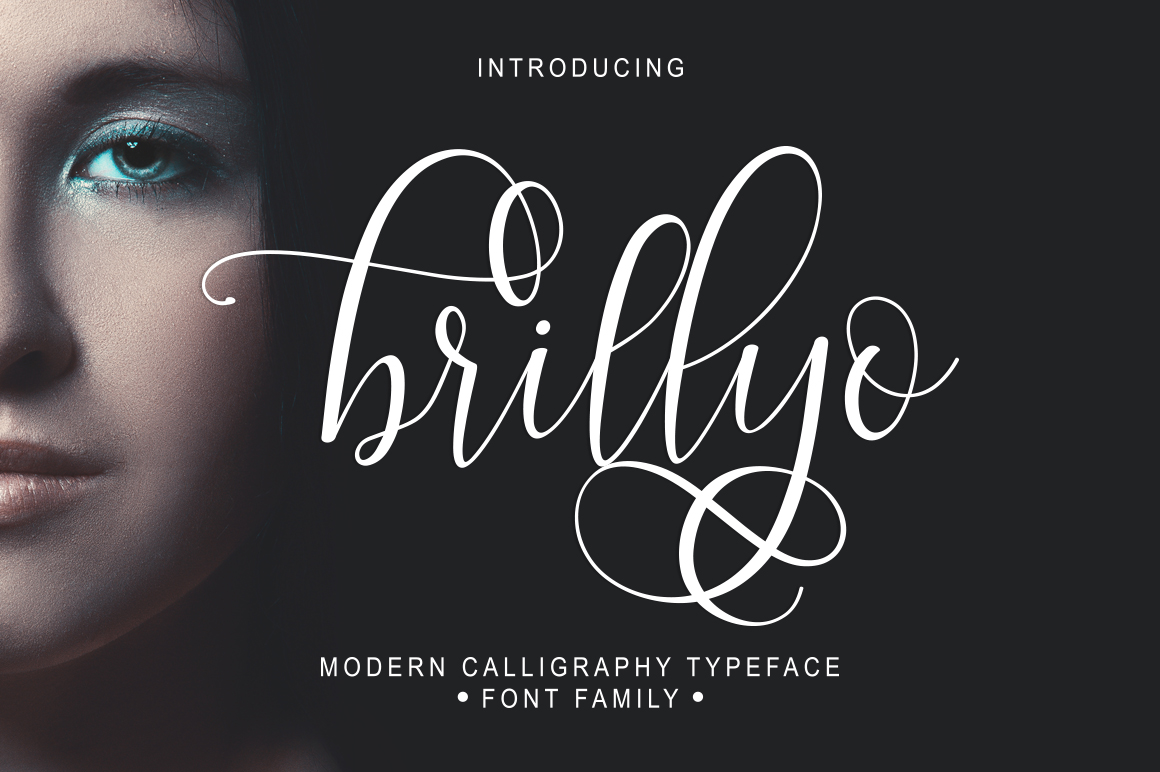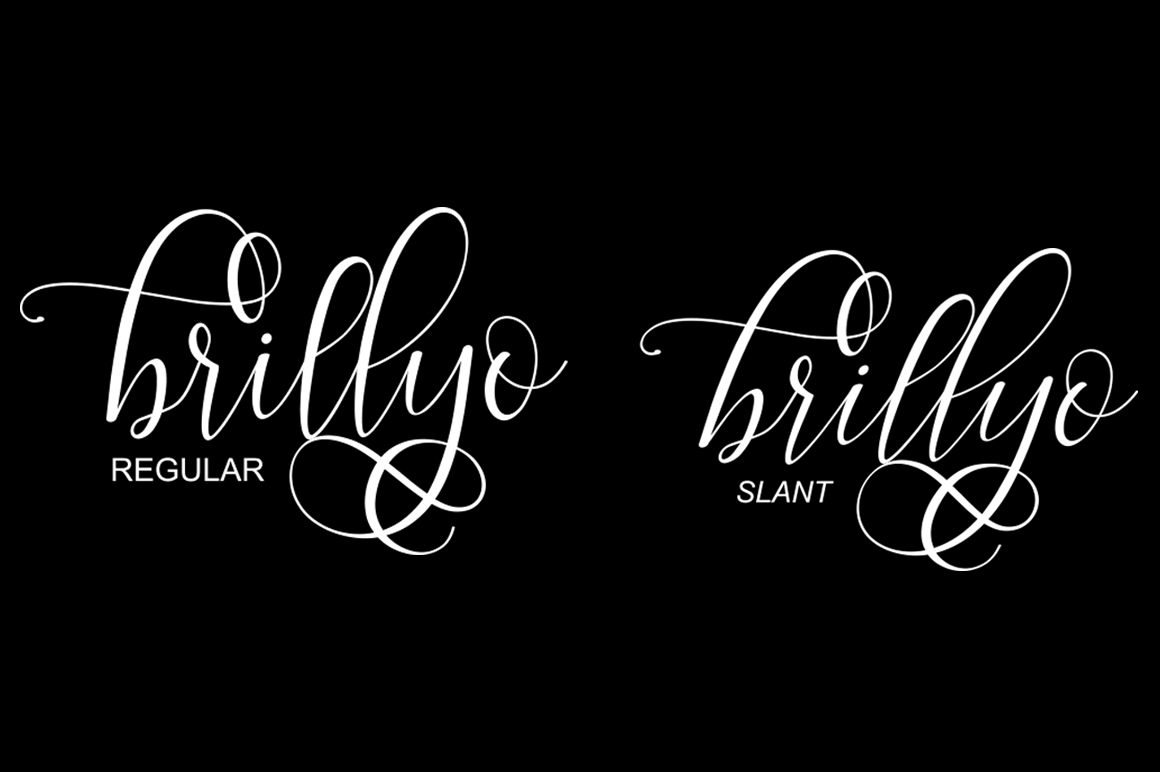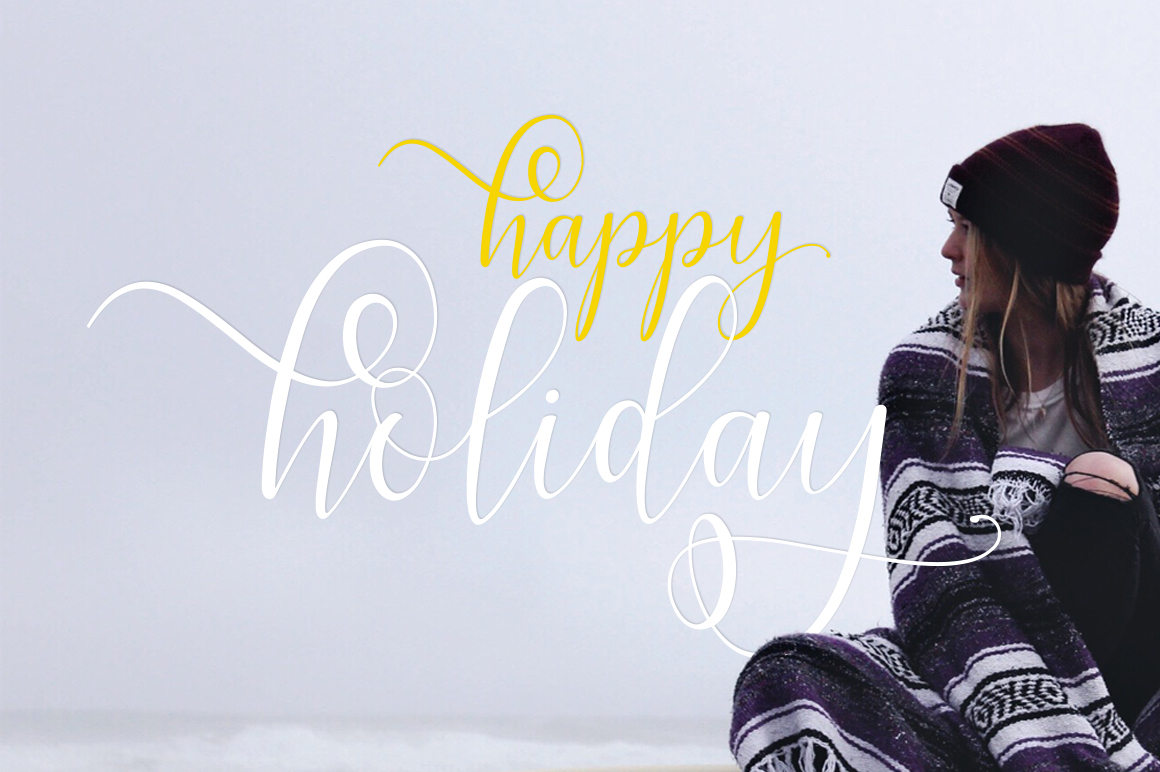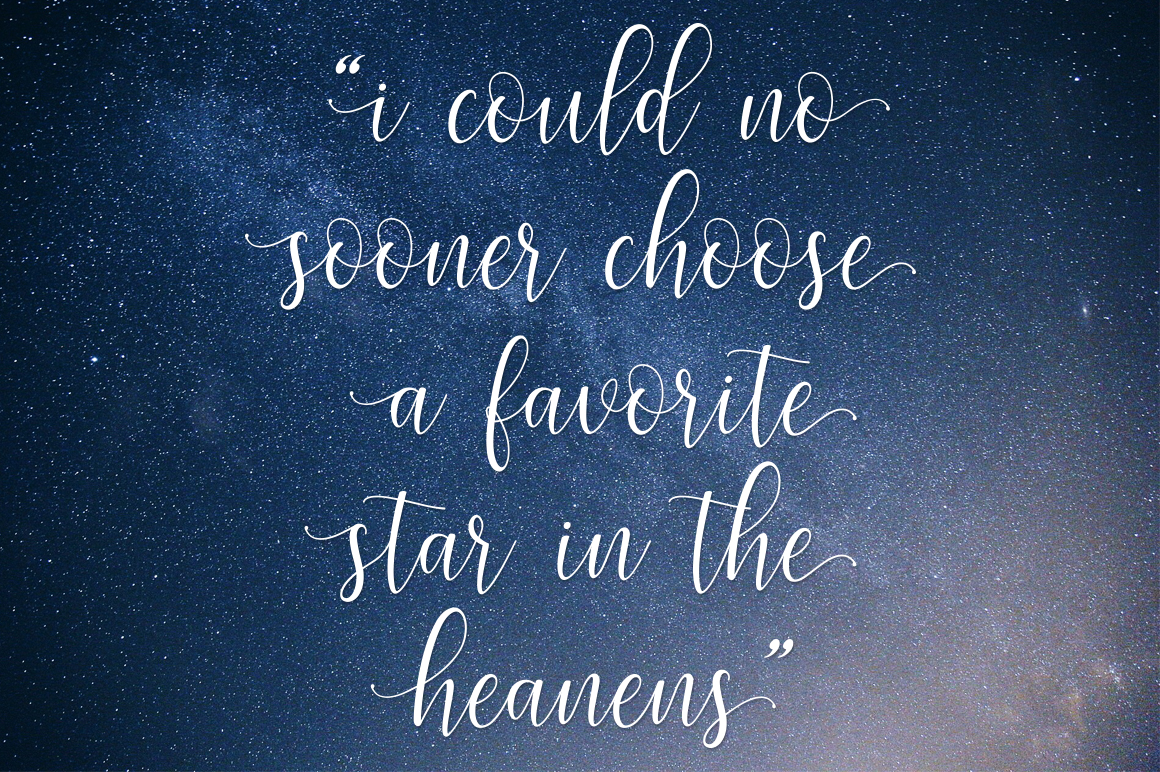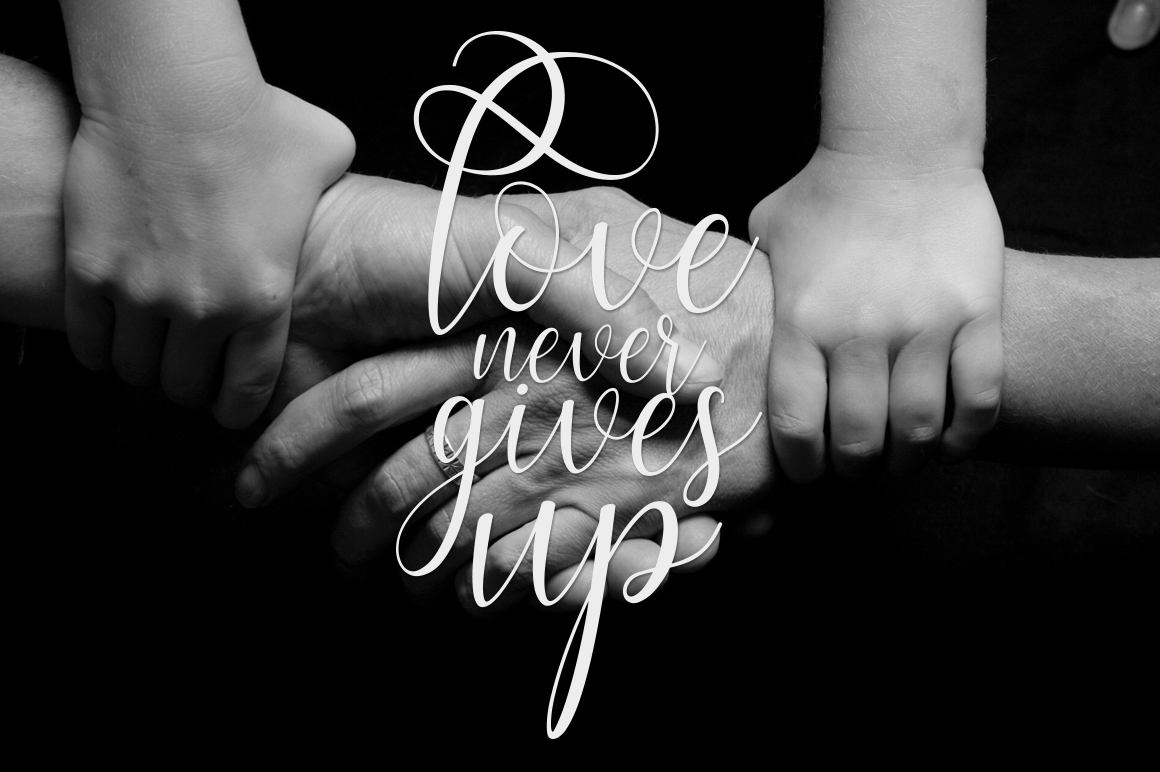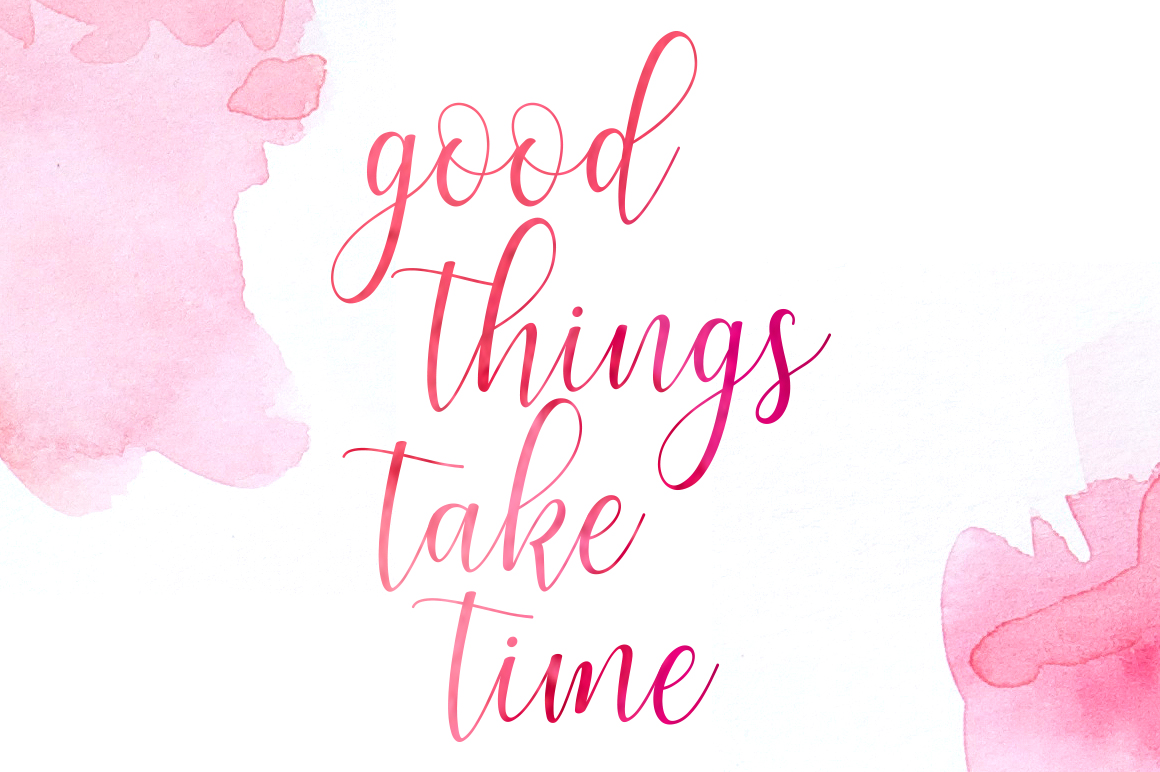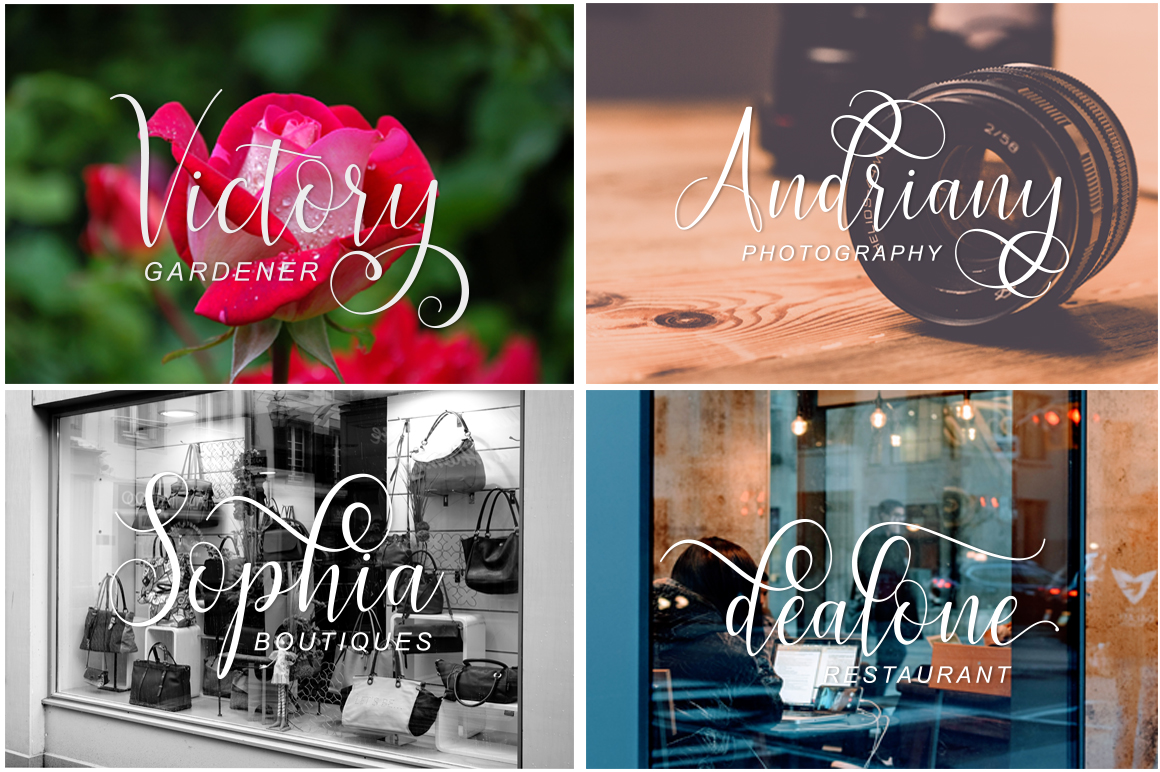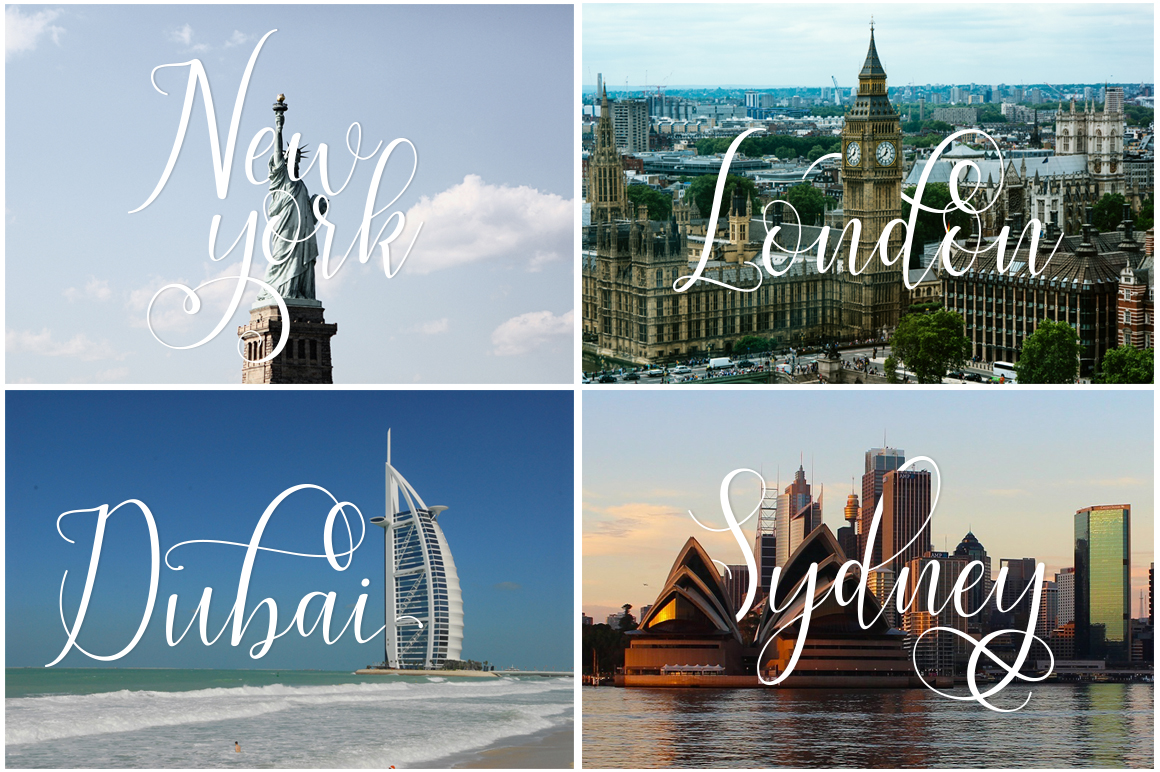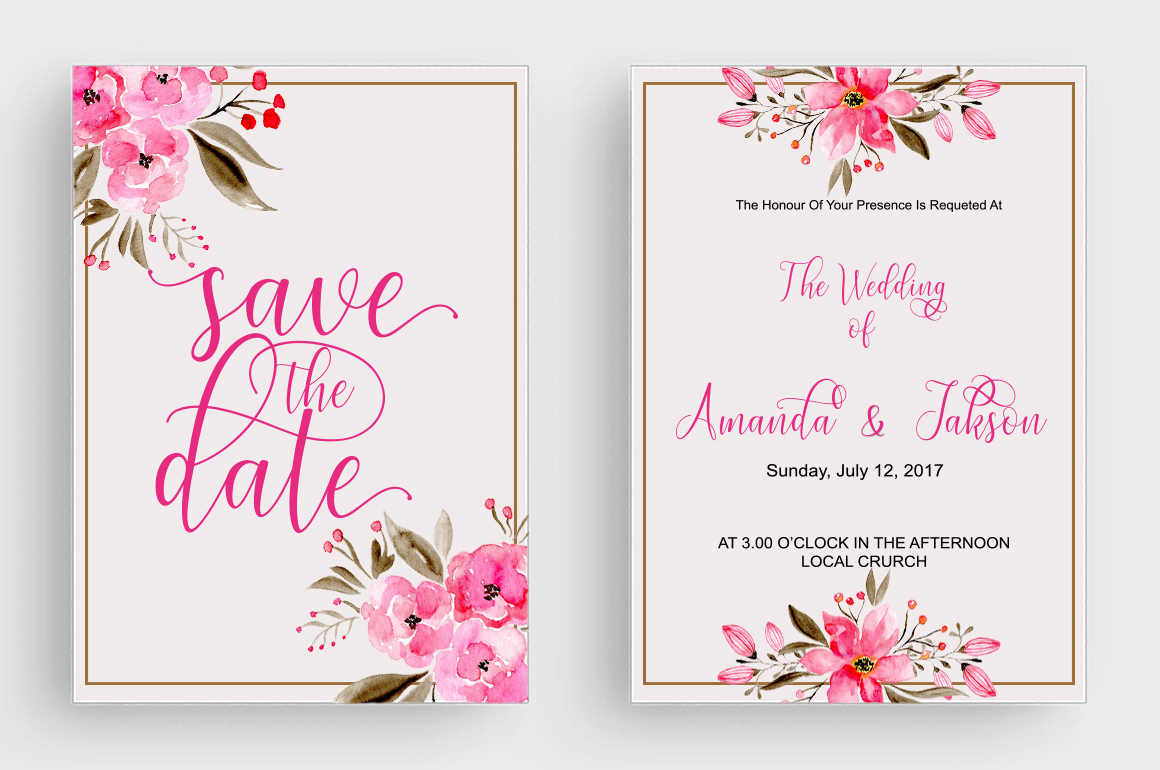
HomeScript FontsBrillyo Font Script Fonts Brillyo Font FacebookXPinterestWhatsApp Brillyo Font Poster 2 Brillyo Font Poster 3 Brillyo Font Poster 4 Brillyo Font Poster 5 Brillyo Font Poster 6 Brillyo Font Poster 7 Brillyo Font Poster 8 Brillyo Font Poster 9 About Brillyo Font A modern handwritten calligraphy font. This stunning script is suitable for a great range of different projects. DOWNLOAD ON CREATIVE FABRICAThis font is sold and delivered by Creative Fabrica. Font Canyon may earn a commission if you buy through this link. People also explored Kandaline Font Amiger Font Frostoba Bellina Font Arsalia Font Zeromoshe Font Beauty Christmas Font Fly Away Font Mens Dark Grey Heather Bella Canvas 3001 325 0 TagsBrillyo Font Previous articleDahlia Script FontNext articleBarbara Script Font LEAVE A REPLY Cancel reply Comment: Please enter your comment! Name:* Please enter your name here Email:* You have entered an incorrect email address! Please enter your email address here Website: Save my name, email, and website in this browser for the next time I comment. Personal Use Free Roustel Personal Use Free Read more about this font Girl Personal Use Free Read more about this font Aragon Personal Use Free Read more about this font Moon Light Personal Use Free Read more about this font BLOG Where to Buy American Fonts Online in 2024 Where to Buy American Fonts Online: The Ultimate Guide for 2024 Looking for the perfect American font to elevate your design projects? You're in the... Best Fonts for YouTube Videos: Make Your Thumbnails Stand Out The 10 Best Handwriting Fonts to Add Personality to Your Designs How to Cut Any Font on Cricut: Convert a Font to SVG (Free)